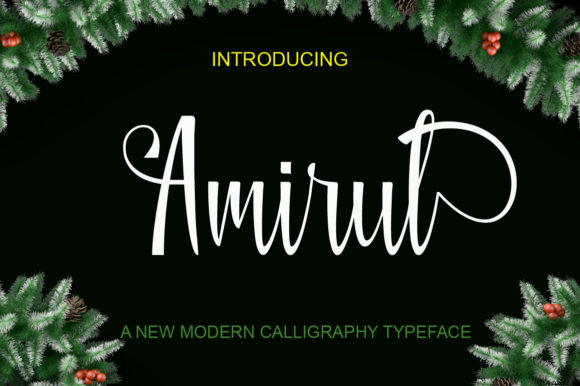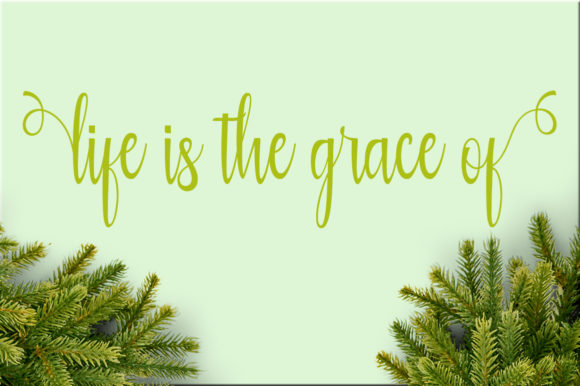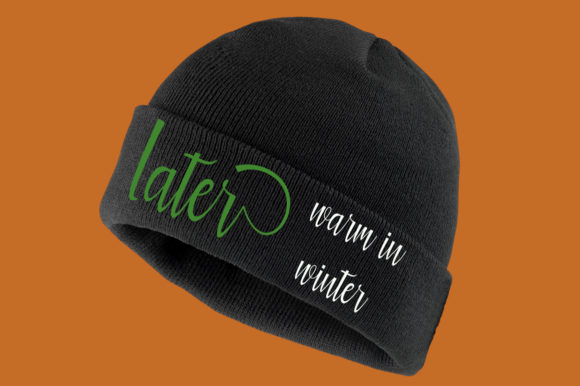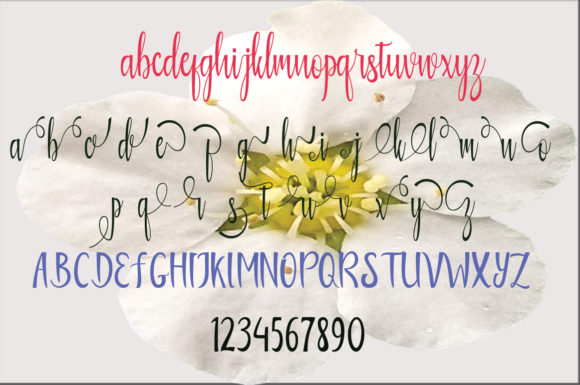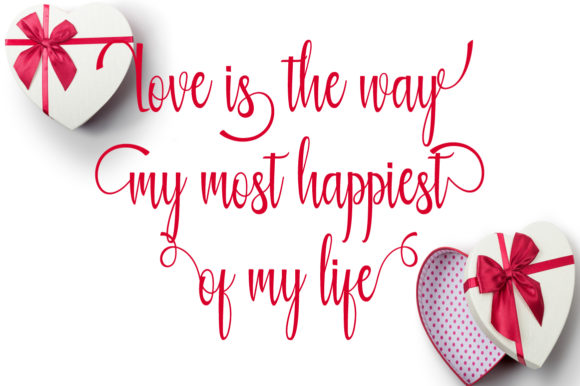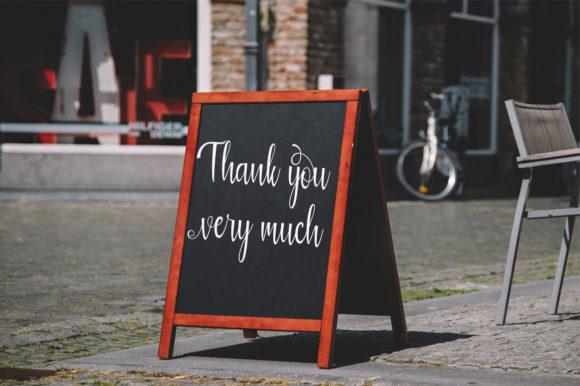
HomeScript FontsAmirul Font Script Fonts Amirul Font FacebookXPinterestWhatsApp Amirul Font Poster 2 Amirul Font Poster 3 Amirul Font Poster 4 Amirul Font Poster 5 Amirul Font Poster 6 About Amirul Font Amirul is a playful and exquisite handwritten font with an authentic twist. Get inspired by its organic feel. DOWNLOAD NOW People also explored Virginity Font Bigcer Risquick Font 1000 Wishes Origami Font The Journey Font Virtoprov Font Mufferaw Battofi Font Hunte Font Moonalissa Font 365 0 TagsAmirul Font Previous articleGlaston FontNext articleCarliste Script Font LEAVE A REPLY Cancel reply Comment: Please enter your comment! Name:* Please enter your name here Email:* You have entered an incorrect email address! Please enter your email address here Website: Save my name, email, and website in this browser for the next time I comment. Personal Use Free Penelope Brush Script Font Personal Use Free Read more about this font Rolling Door Personal Use Free Read more about this font Happy Camping Personal Use Free Read more about this font Cline Personal Use Free Read more about this font BLOG Where to Buy American Fonts Online in 2024 Where to Buy American Fonts Online: The Ultimate Guide for 2024 Looking for the perfect American font to elevate your design projects? You're in the... Free vs Paid Fonts: Why Investing in Premium Fonts Is Worth It How to Install and Use Fonts on Windows, macOS, and Web Projects Modern Sans-Serif Fonts That Brands Love in 2025